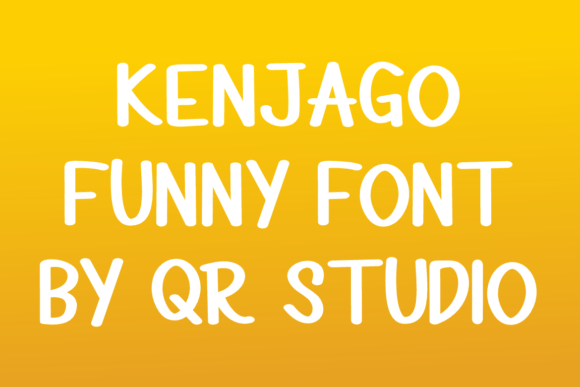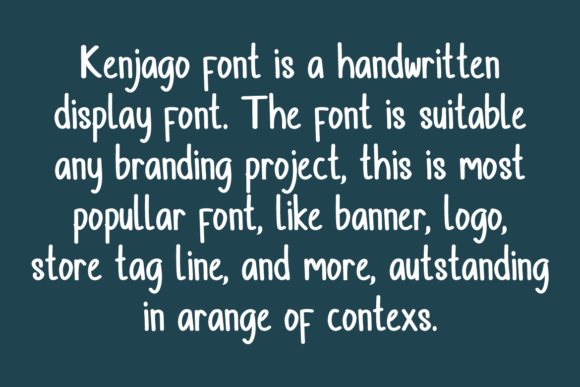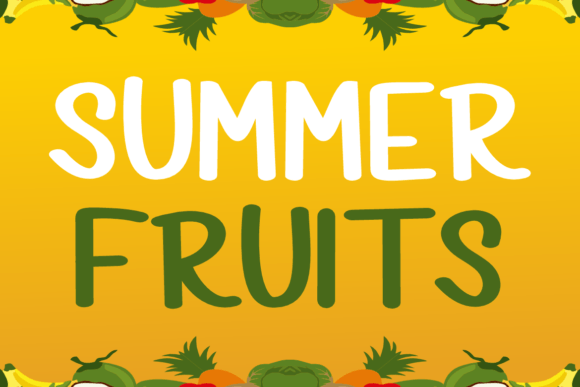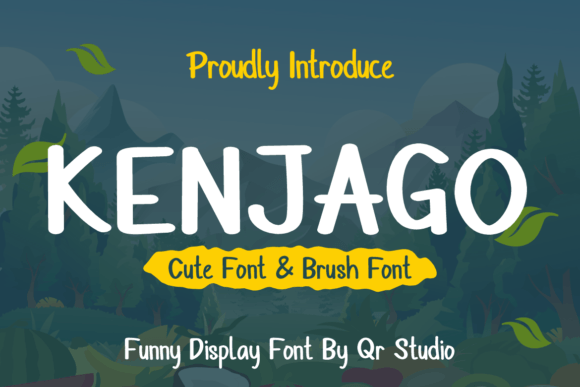
Introduction to Kenjago Font
Kenjago is a sweet and friendly handwritten font.
Its natural and unique look makes it incredibly fitting to a large pool of designs The only limit is your imagination.
Why Choose Kenjago Font?
Kenjago Font offers exceptional quality and versatility, making it a valuable addition to your design toolkit. Whether you’re creating for personal projects or commercial use, Kenjago Font delivers professional results.